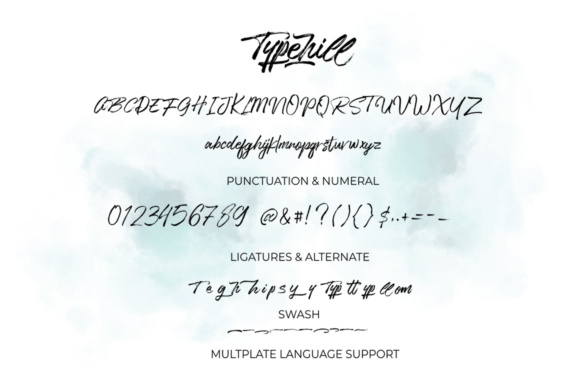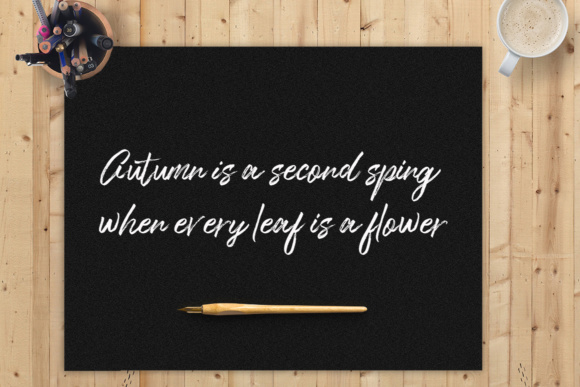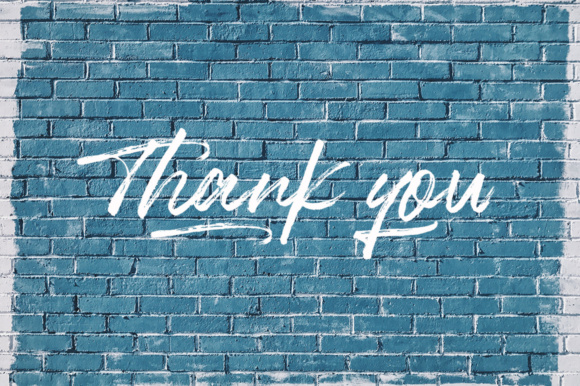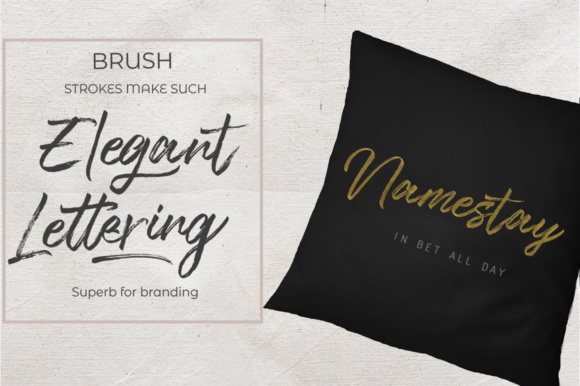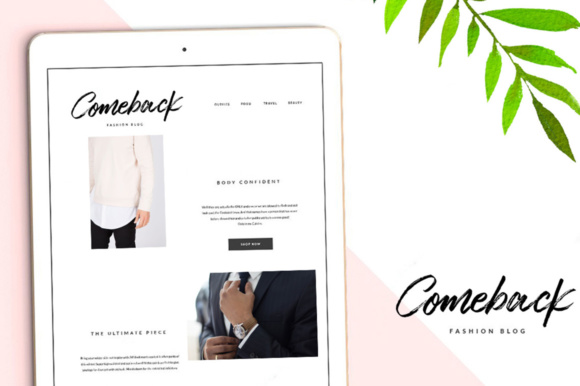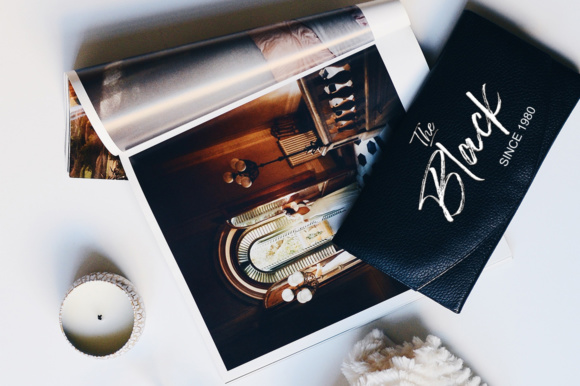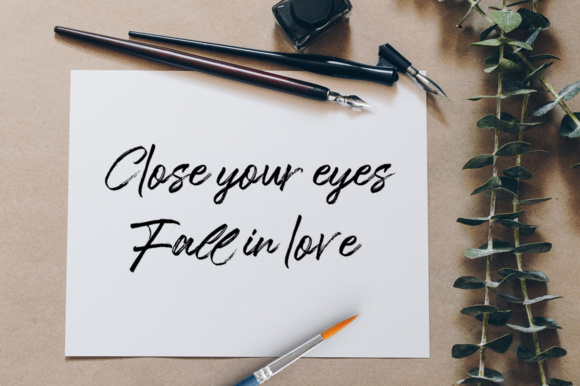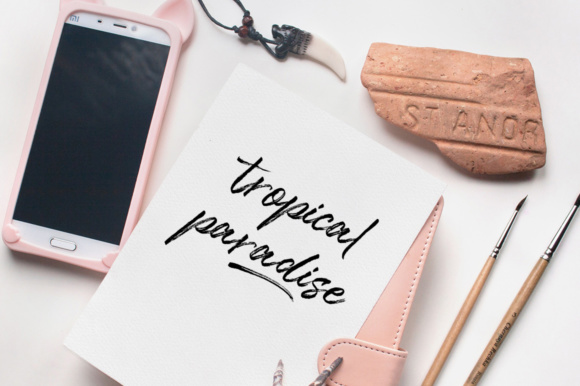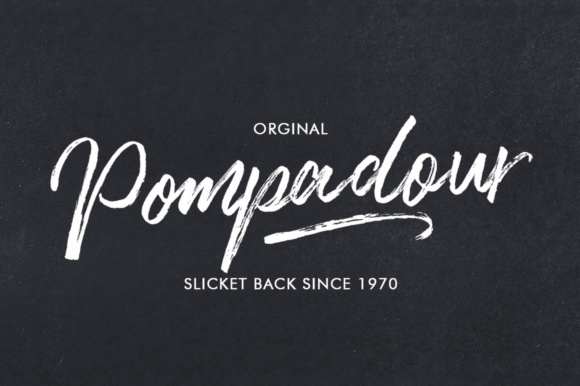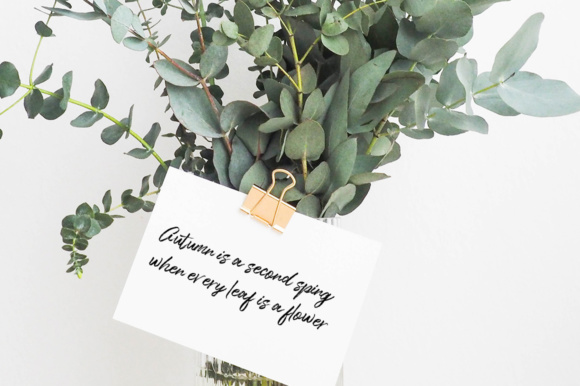
One Day Font
About One Day Font
One Day is a modern script font with an irregular baseline. It contains striking swashes to make your design stand out.